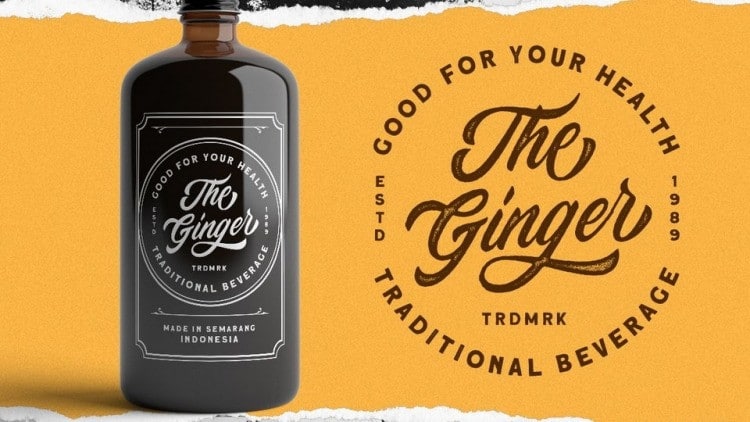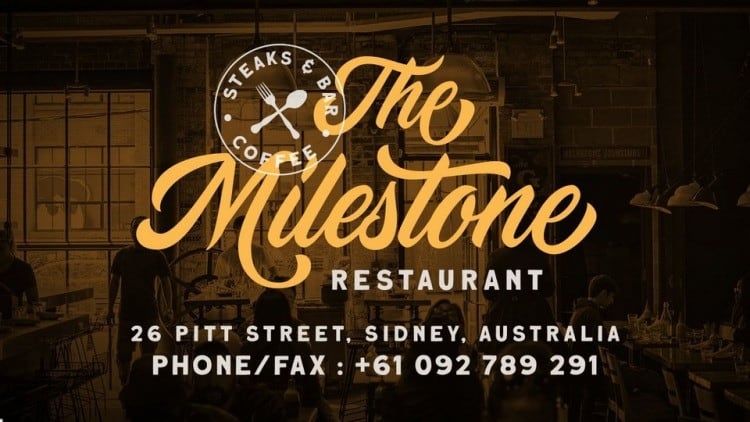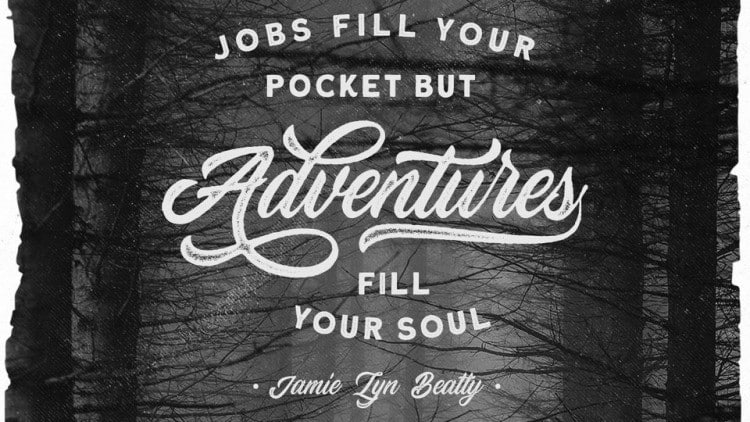
Devilion Bold Script Font is a retro style font created by Letterhend Studio with attractive swashes and alternates. This font gives a touch of the retro style that the 60-70s was famous for. This font perfectly made to be applied especially in vintage style logo, labels, badges, magazines, book covers, packaging, fashion or any type of advertising purpose.